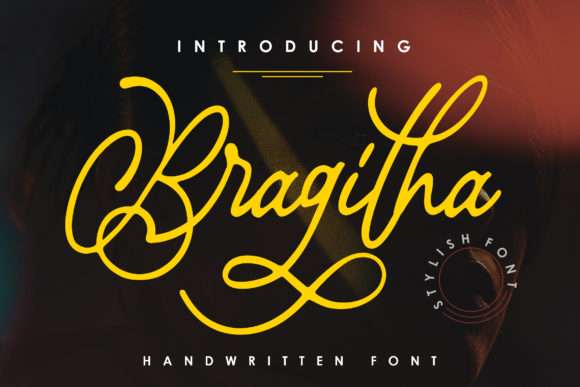
The Search for the Perfect Font: How Bragitha Stole My Heart
I’ll never forget the countless hours I spent searching for the perfect font for a wedding invitation project. My client wanted something elegant, yet playful; something that would capture the essence of their special day. I scoured the internet, tried out dozens of fonts, but nothing seemed quite right. That was until I stumbled upon Bragitha, a brand new stylish handwritten font that has since become my go-to for all sorts of creative projects.
An Honest Review of Bragitha
So, what makes Bragitha so special? Let’s dive into the good stuff! 🤩
- ✨ Elegant and Refined: Bragitha boasts a sophisticated, handwritten feel that’s perfect for weddings, logos, posters, and more.
- ✅ Versatile: This font is incredibly versatile, making it suitable for a wide range of applications, from book titles to social media graphics.
- 💫 Unique Character: Bragitha has a distinct personality that sets it apart from other fonts, making your designs instantly recognizable.
Of course, no font is perfect, and Bragitha does have a few minor quirks:
- 🤔 Limited Multilingual Support: While Bragitha covers the basics, it may not support every language or character set.
- ⚠️ Occasional Kerning Issues: As with any font, you may encounter some kerning issues, especially when using all caps or mixing with other fonts.
The Story Behind Bragitha
Bragitha was designed with the intention of creating a modern, yet timeless font that would capture the essence of handwritten elegance. Inspired by classic calligraphy and modern digital design, Bragitha’s creator aimed to produce a font that would be both versatile and beautiful.
| Font Name | Bragitha Font |
| Author | Nurmiftah |
| What makes Bragitha unique? | Bragitha boasts a distinct, elegant handwritten feel with a range of OpenType features, making it perfect for creative projects. |
| Is Bragitha suitable for body text? | While Bragitha is primarily designed for headings and titles, it can be used for body text in certain contexts, such as creative writing or blog posts. |